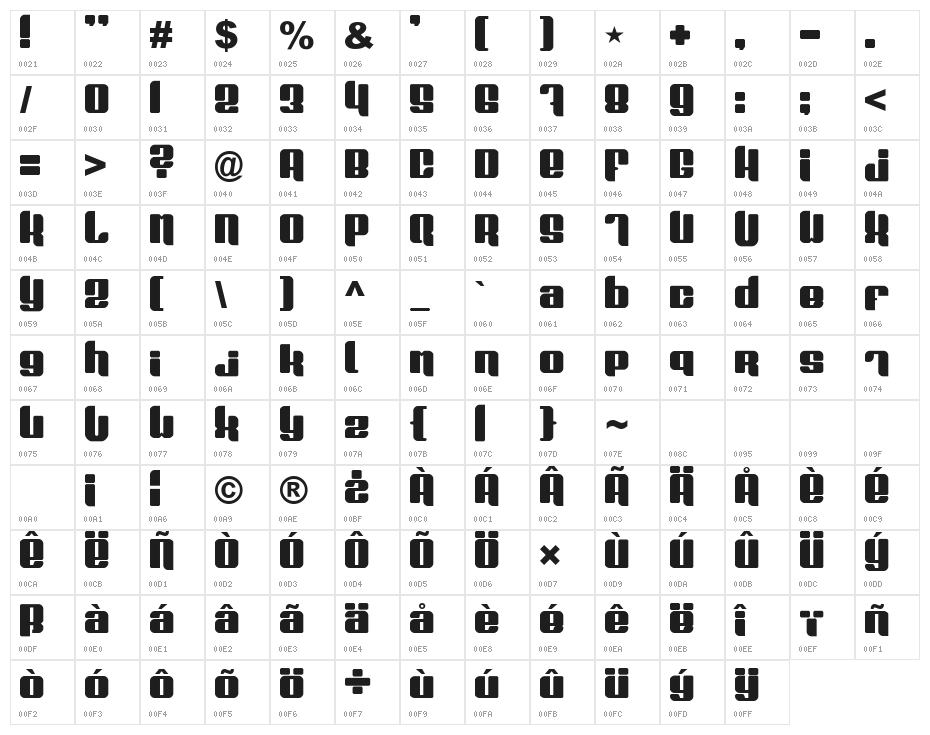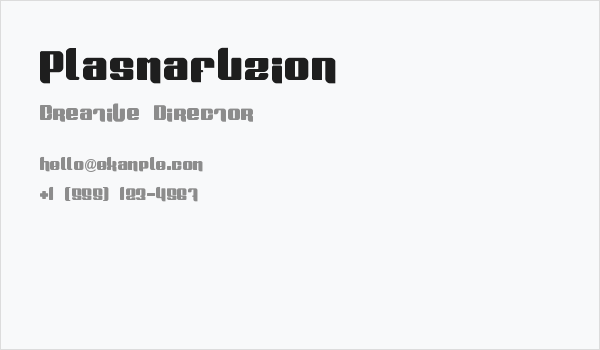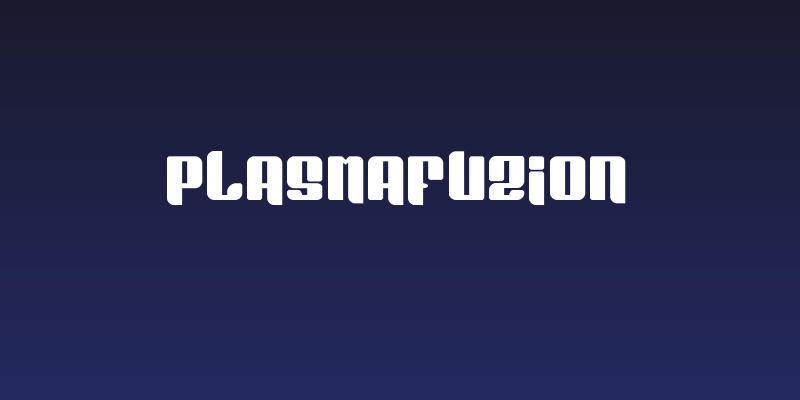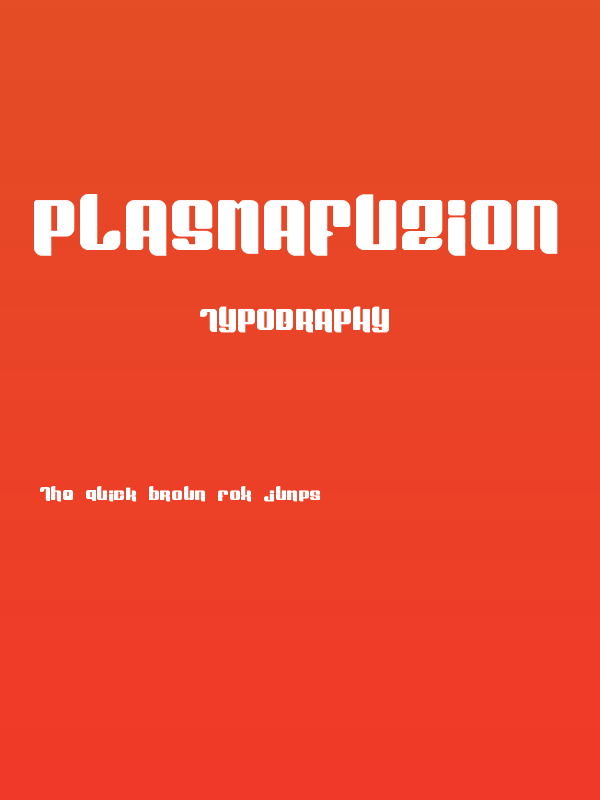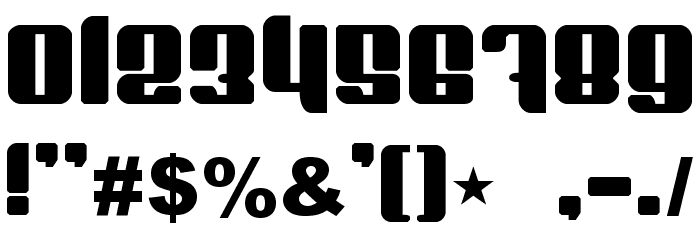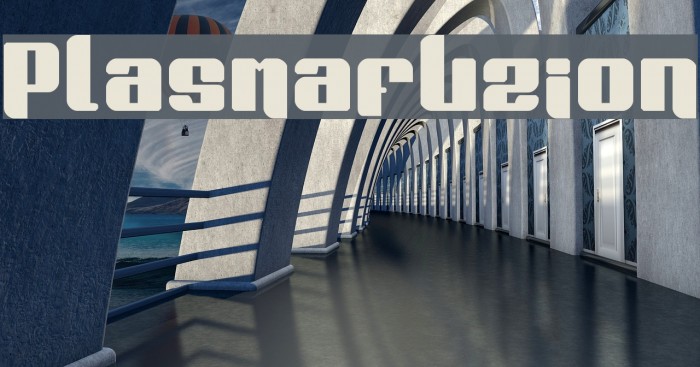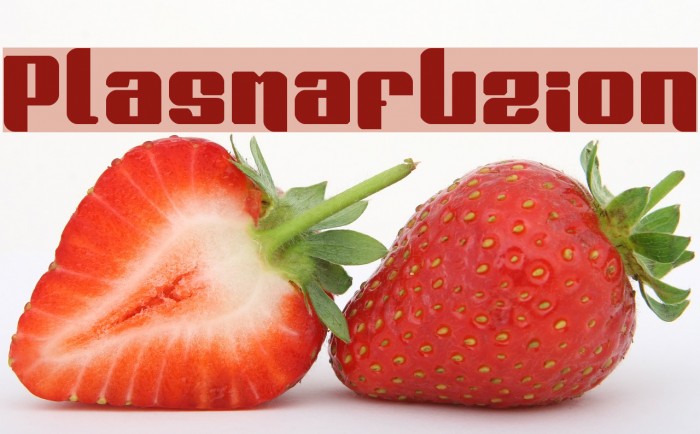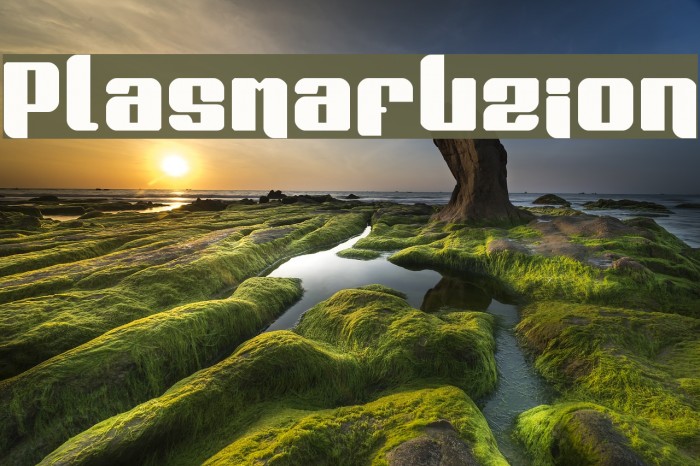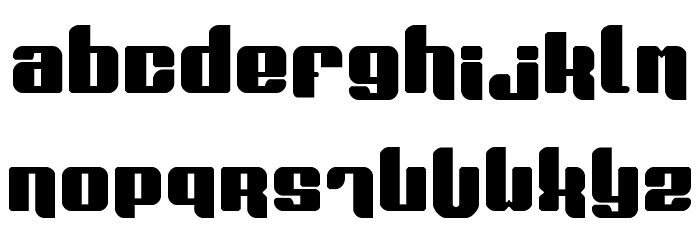
Plasmafuzion Font
Plasmafuzion Description
This font features a bold, geometric design with a futuristic flair. The characters are constructed with thick, block-like shapes that give a sense of strength and stability. The uppercase and lowercase letters maintain a consistent style, with rounded edges and uniform stroke widths. The numbers and special characters follow the same design principles, ensuring a cohesive look across all glyphs. This font is highly legible and makes a strong visual impact, ideal for attention-grabbing designs.
| Proposed Projects | Ideal for sci-fi themed projects, technology branding, video game titles, and modern poster designs. |